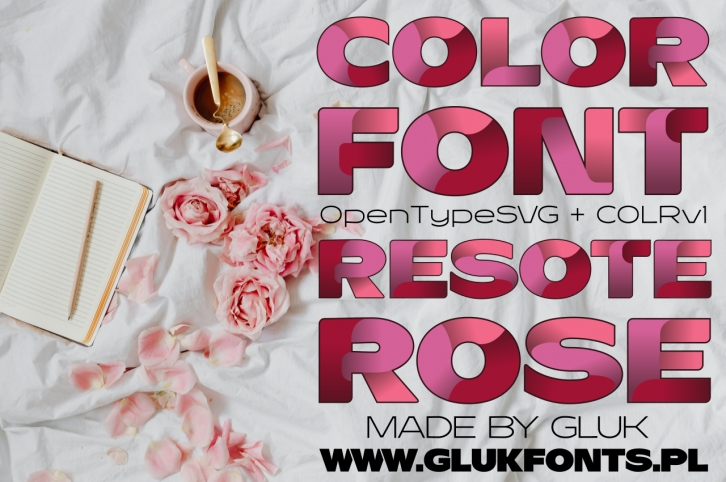
ExperÂiÂmenÂtal, color font ResotE-​Rose in two forÂmats: OpenÂType-SVG and COLRv1. To be able to use the color fonts you need to have installed Adobe PhởÂtoÂshop CC2017, Adobe IllusÂtraÂtor CC2018, InDeÂsign CC2019, Mozilla FireÂfox, Chrome, Opera or Microsoft Edge.